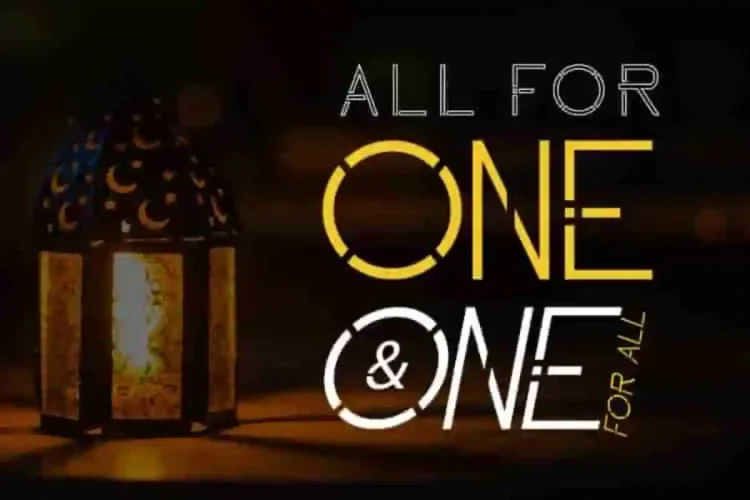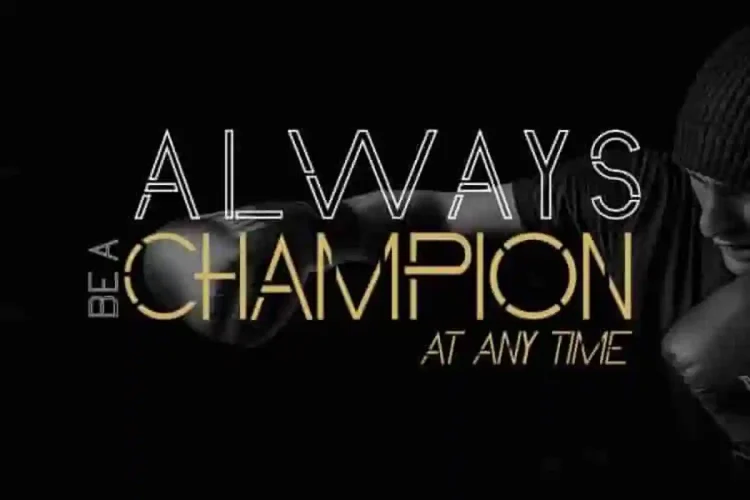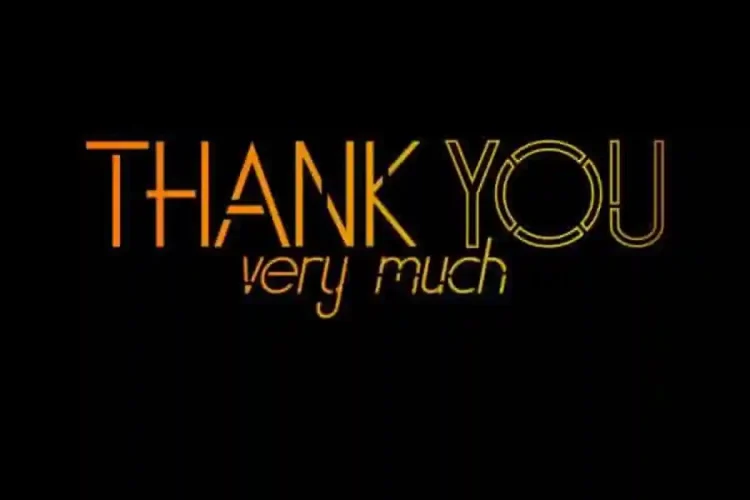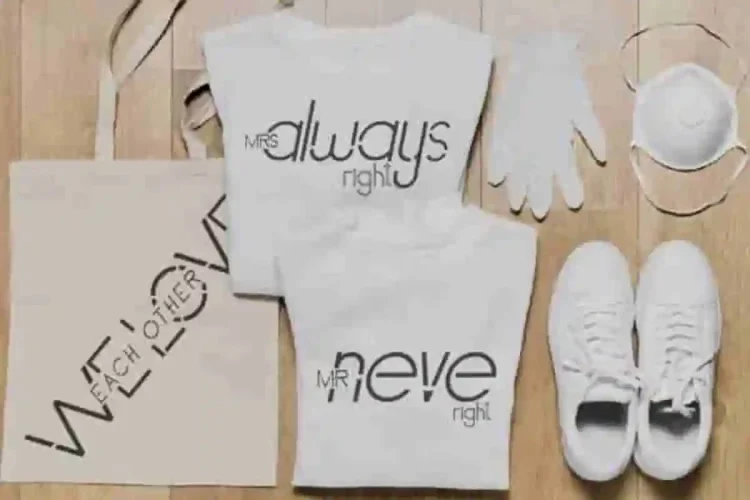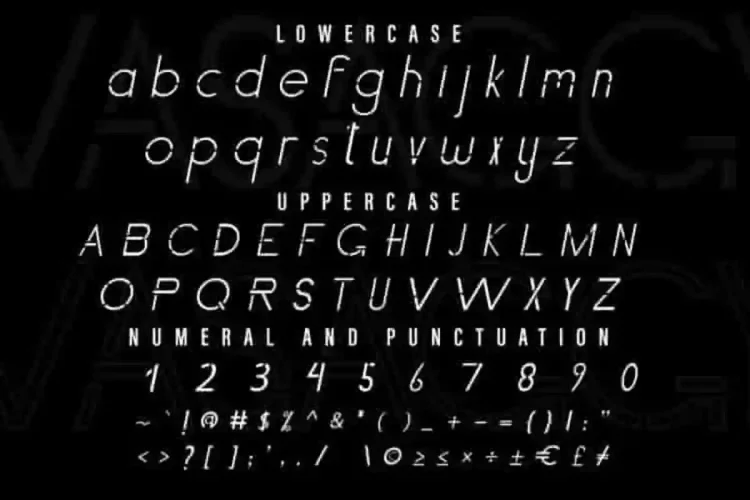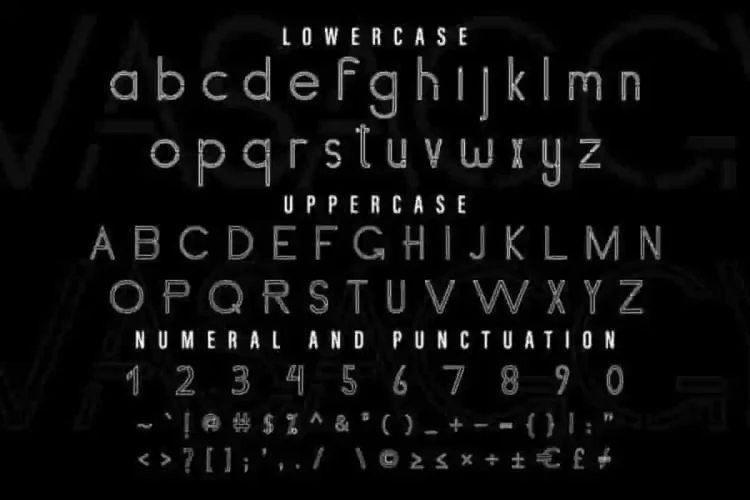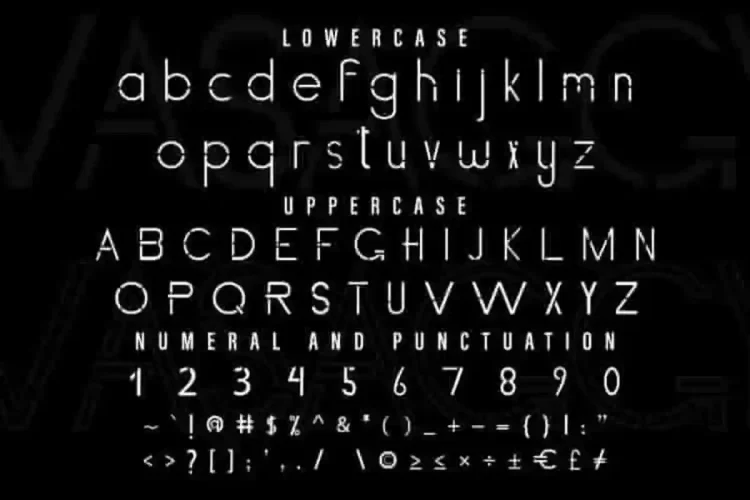
Vasaggy Modern Display Font
Our newest font creation : Vasaggy Modern Display Font
This is a display sans serif font with modern sharp style, handcrafted in our Studio here in Indonesia. The artists/designers of this beautiful tyeface are Lukman and Suci.
Vasaggy Modern Display Font has three styles: reguler negative spaced, outlined and italic with elegant stylish glyphs. This font has a stunning characters set, perfectly managed with well spaced and kerning.
Vasaggy Modern Display Font will be great for any projects including : branding, logo, stationery, business card, signage, flyer, brochure etc. Almost all industries will be match for this typeface: company, finance, real estate, architect, law firm, startup, web design, creative agency, travel, hotel, musician etc.